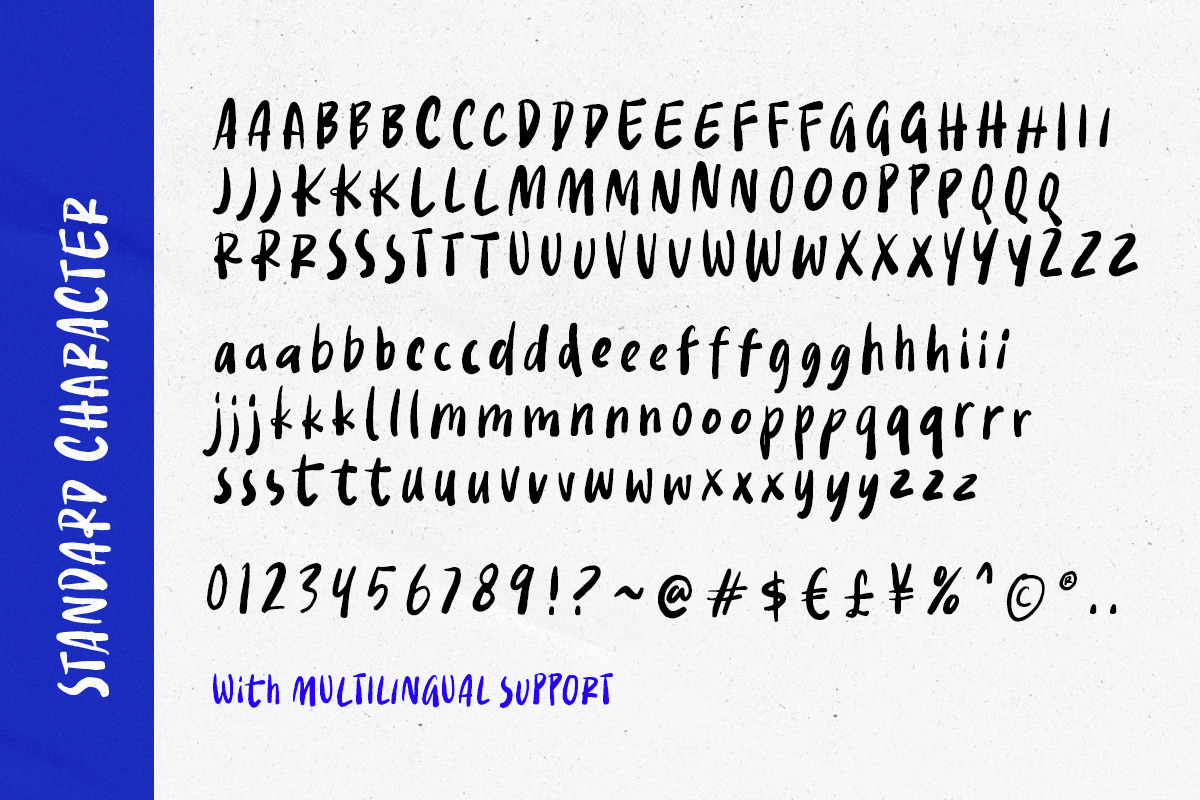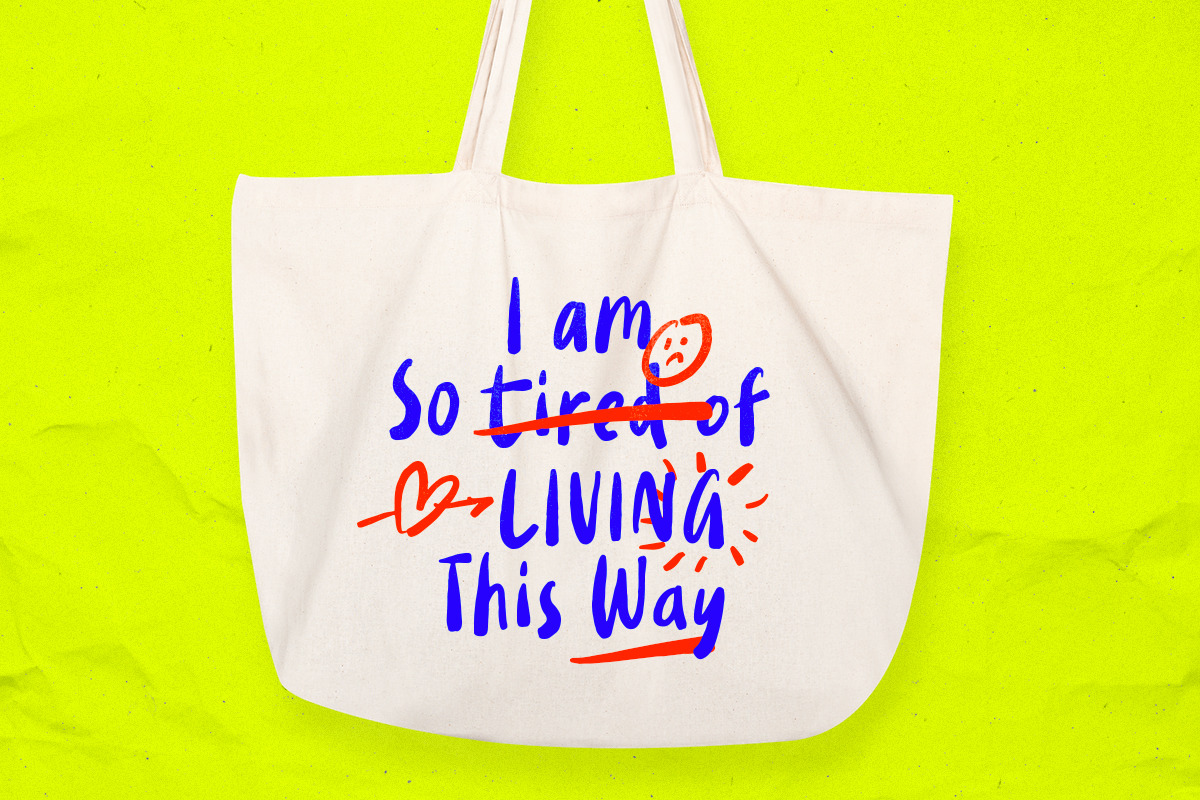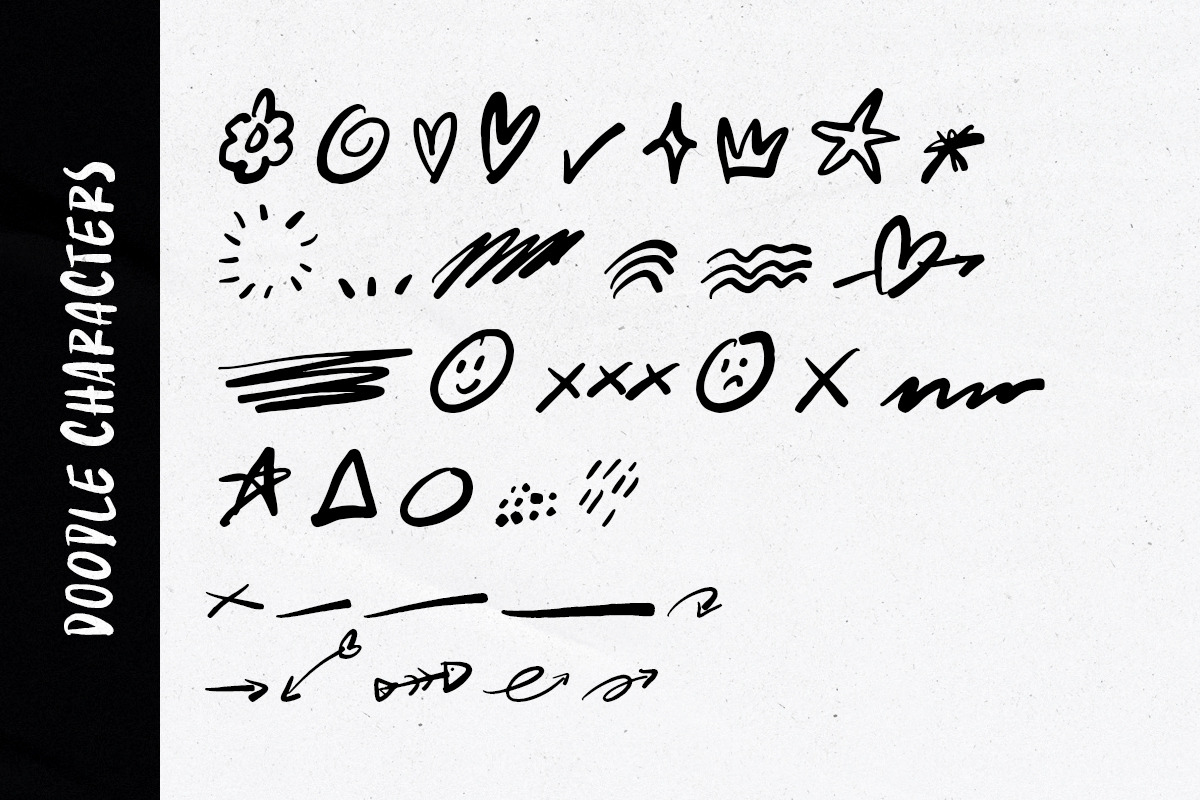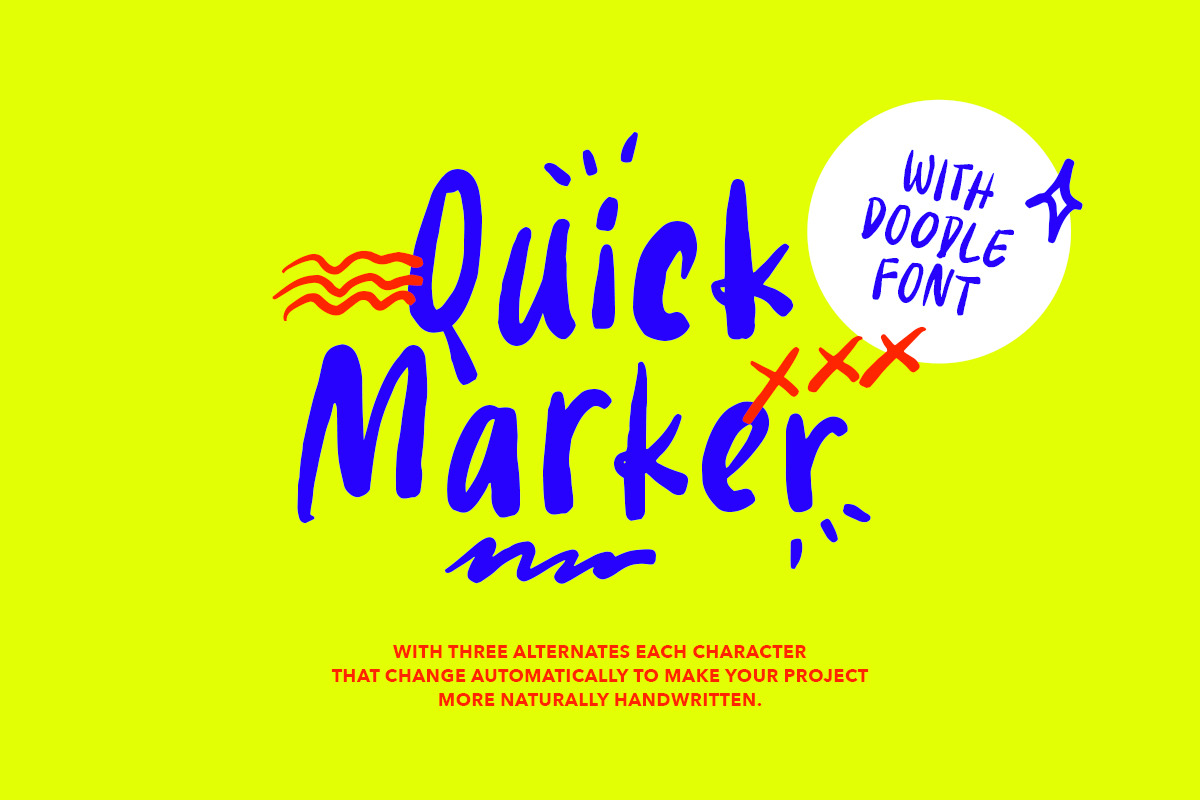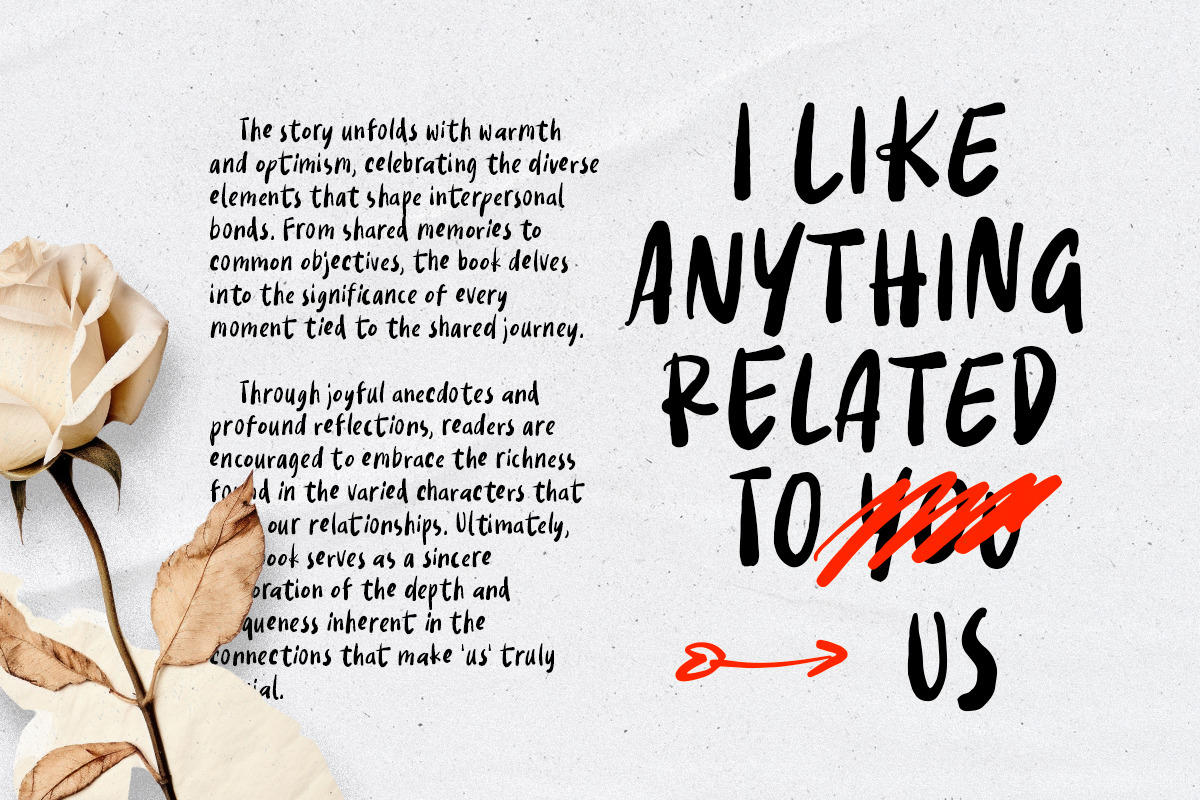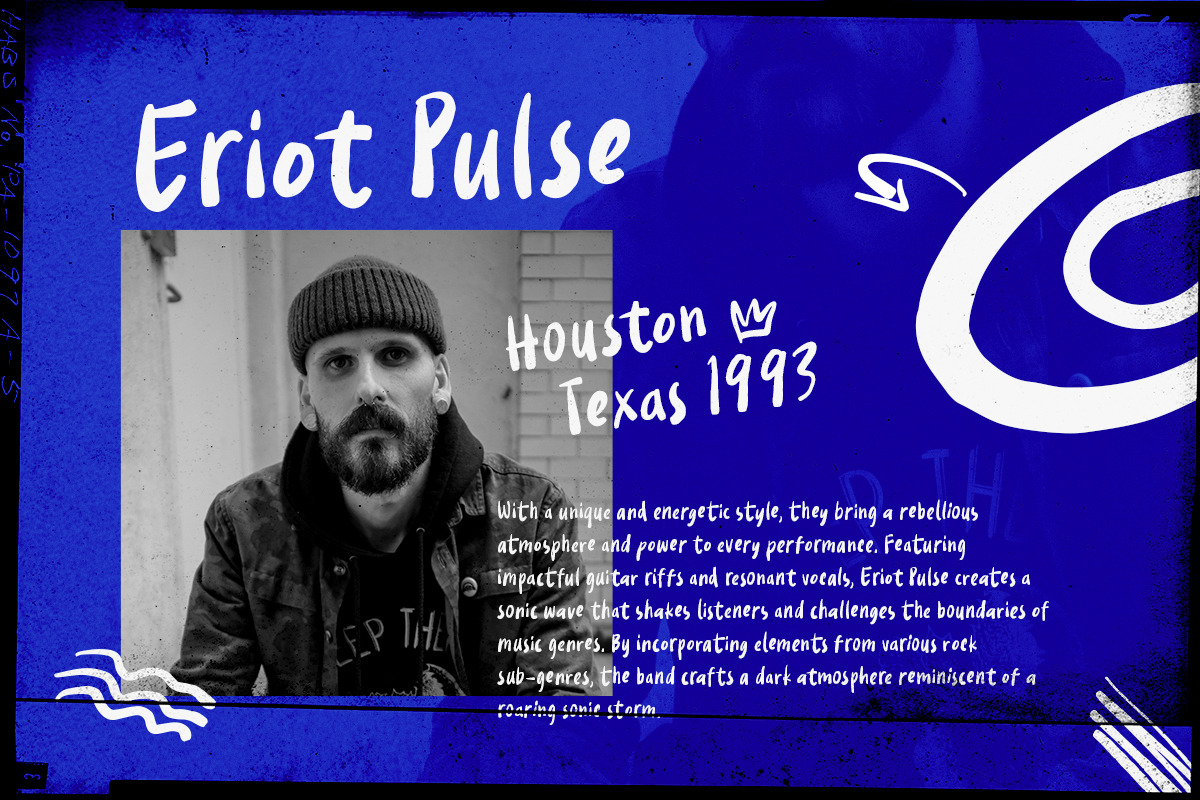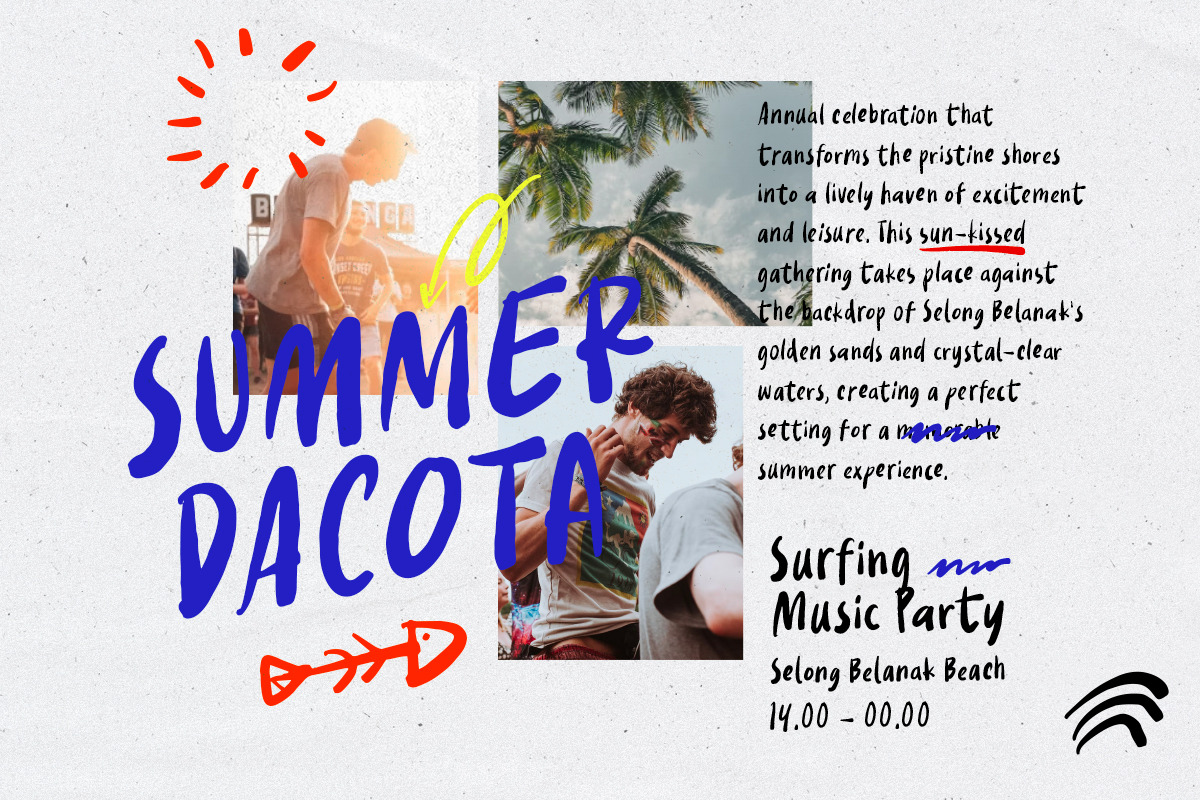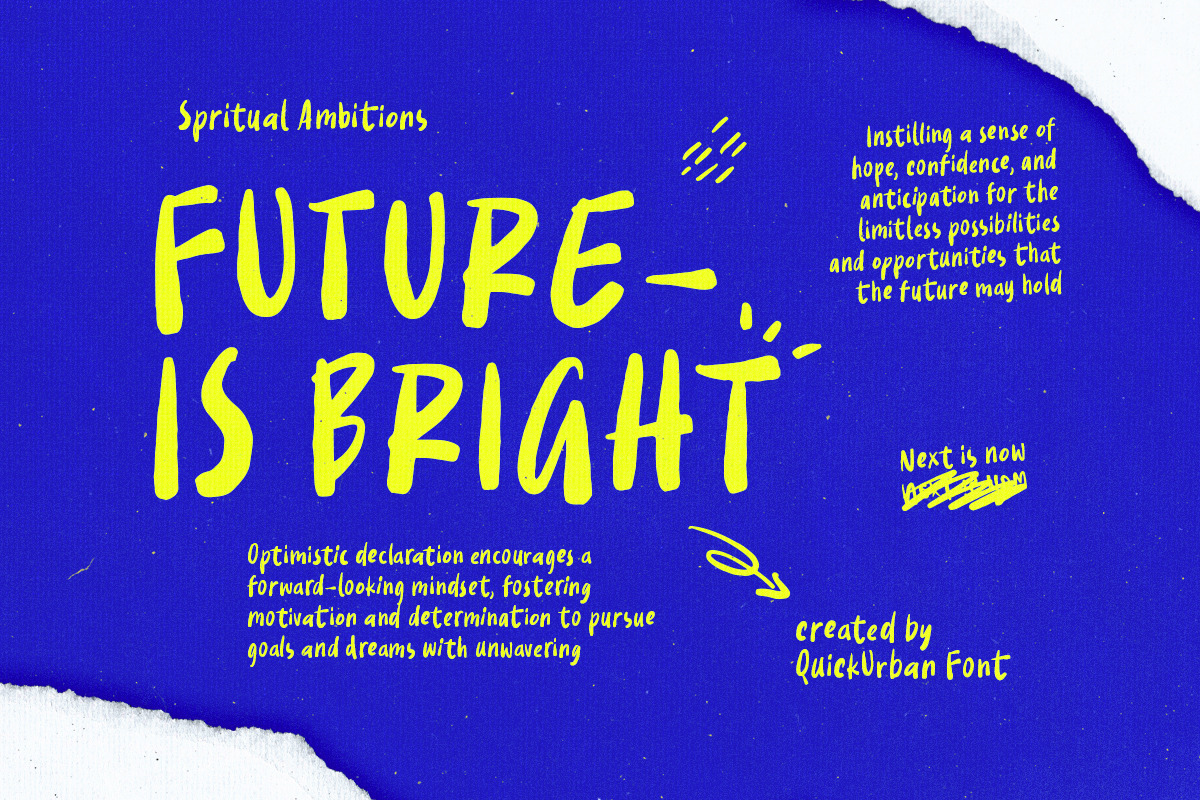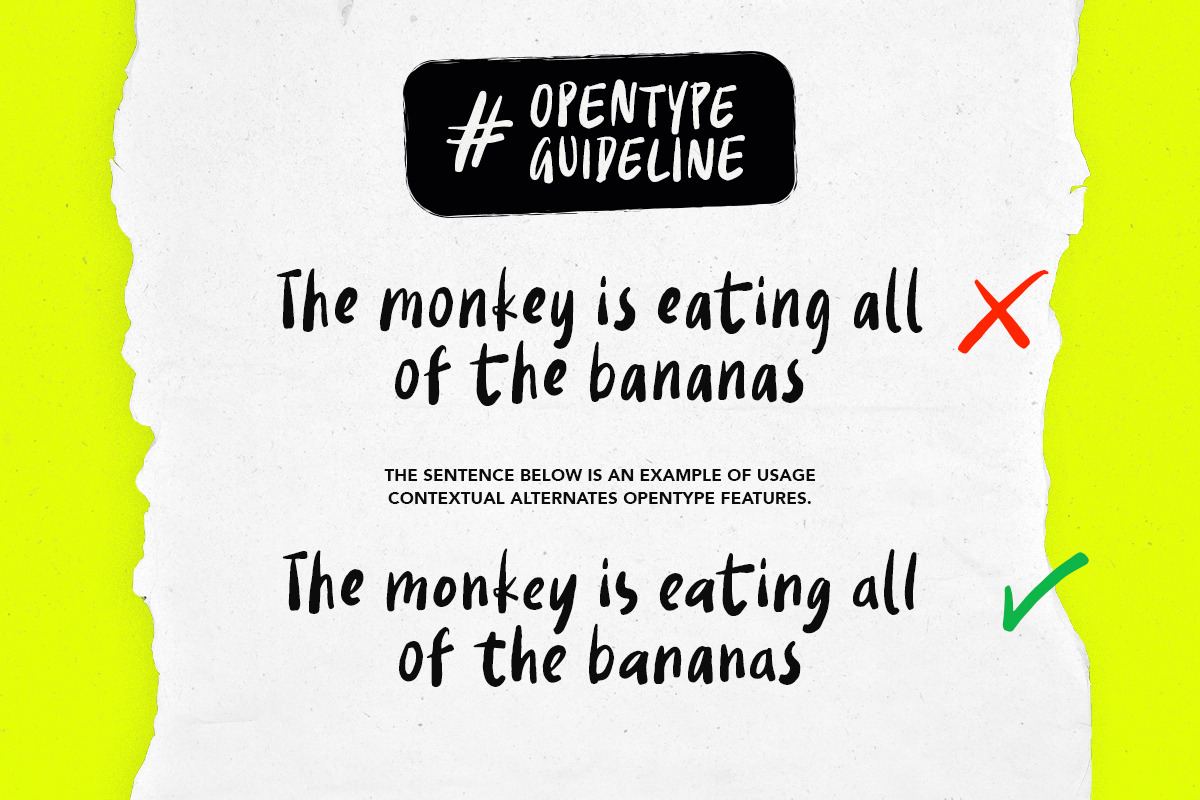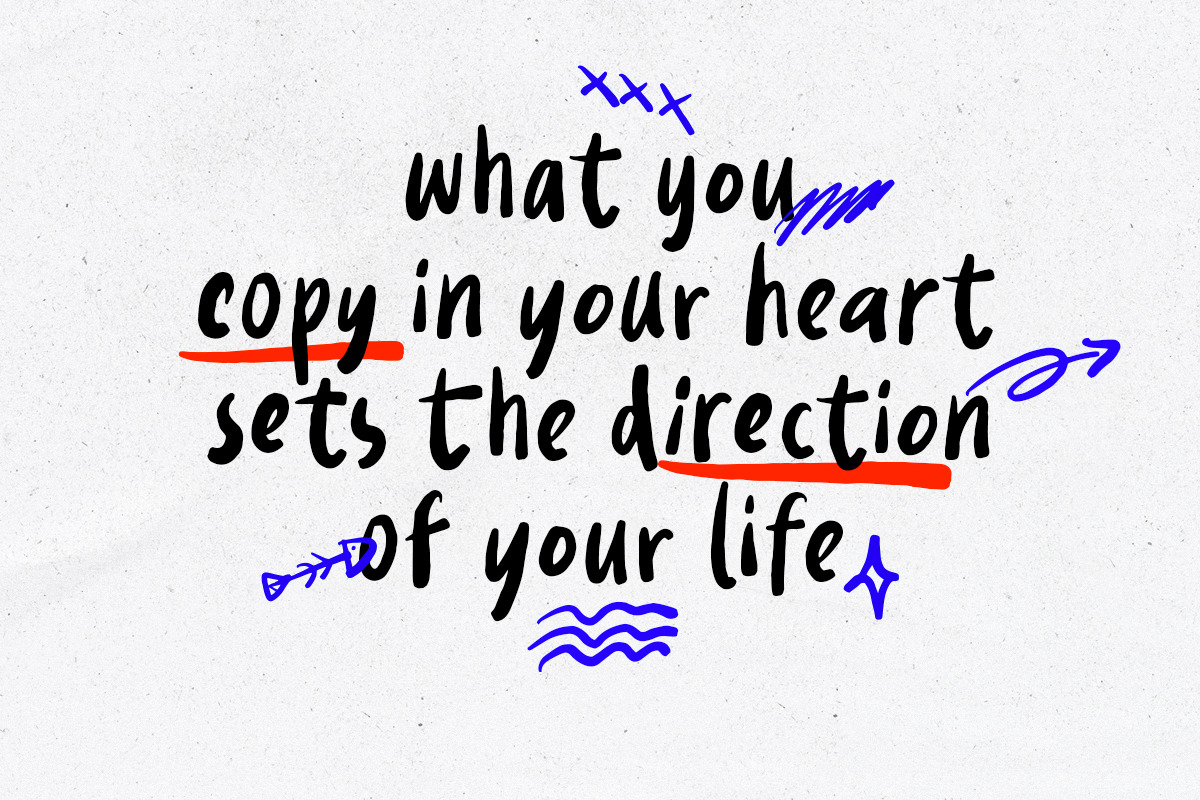
Quick Marker - Quote Font + Doodle
Introducing, Quick Marker, bold handwritten font with doodles!
Quick Marker is a handwritten font with bold and unique looks. With 3 set each characters, you can active the Contextual Alternates in Opentype Features from Adobe Photoshop/Illustrator to make the characters change automatically so your words or design looks more naturally handwritten. Comes with doodles in font format that will complete and compliment your projects. You can use this fonts for any project such as branding, street art, quotes, and tagline. You can access the doodle just type A-Z a-z, don't forget to select the font "Quick Marker Doodle" before. This font also support Multi Language!